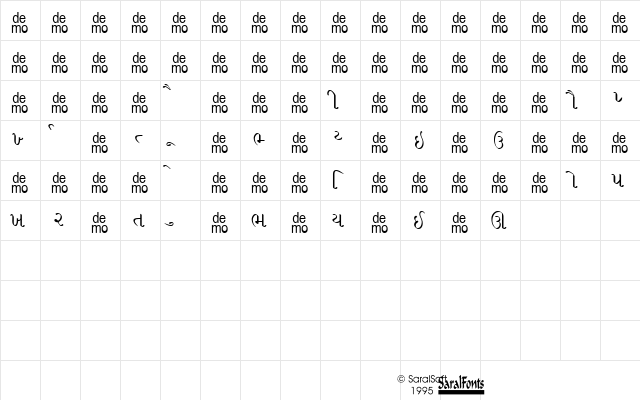
Gujrati Saral-DEMO Normal
Design Context for Gujrati Saral-DEMO Typeface
Gujrati Saral-DEMO is a composed and adaptable typeface that performs quietly and consistently across a wide range of design contexts.